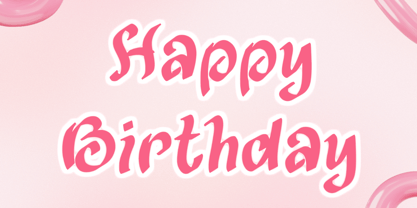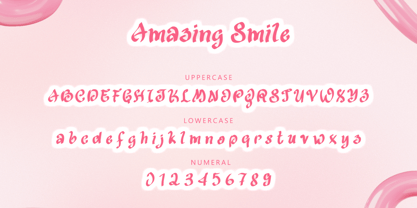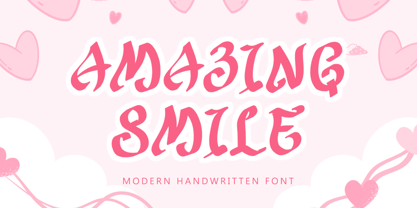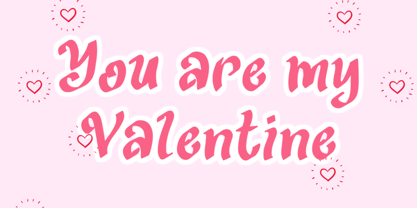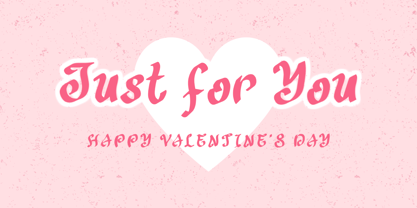
Amazing Smile
La familia tipográfica Amazing Smile fue diseñada por Isroni Yoga Prasetya y publicada por Yoga Letter. Amazing Smile contiene 1 estilos. Más información sobre esta familia
"Amazing Smile" is a unique and elegant handwritten font. It comes with capital letters, lowercase letters, numbers, punctuation marks, and multilingual support. It is perfect for use on Valentine's Day, Christmas, Winter, Birthday, Wedding, Branding, Stickers, Posters, Prints, Invitations, etc.